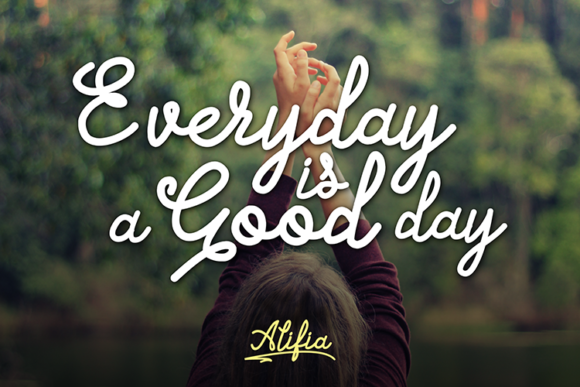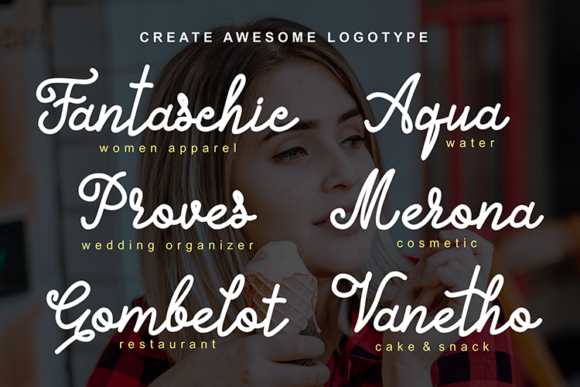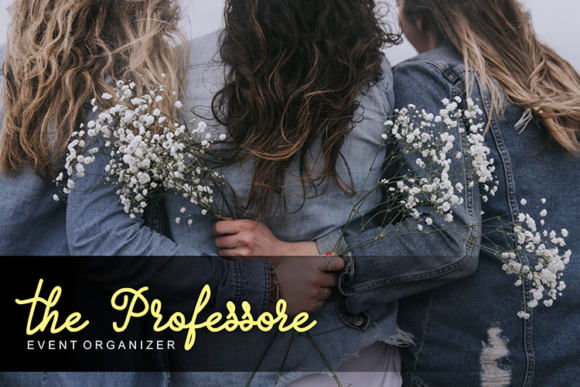
Introduction to Alifia Font
The Alifia is a simple handwritten font that can be used to make a design for logo branding, poster headlines, magazines, book titles, business cards, beautiful fashion designs, advertisements, product designs, wedding invitations, and much more.
Alifia Font offers exceptional quality and versatility, making it a valuable addition to your design toolkit. Whether you’re creating for personal projects or commercial use, Alifia Font delivers professional results.